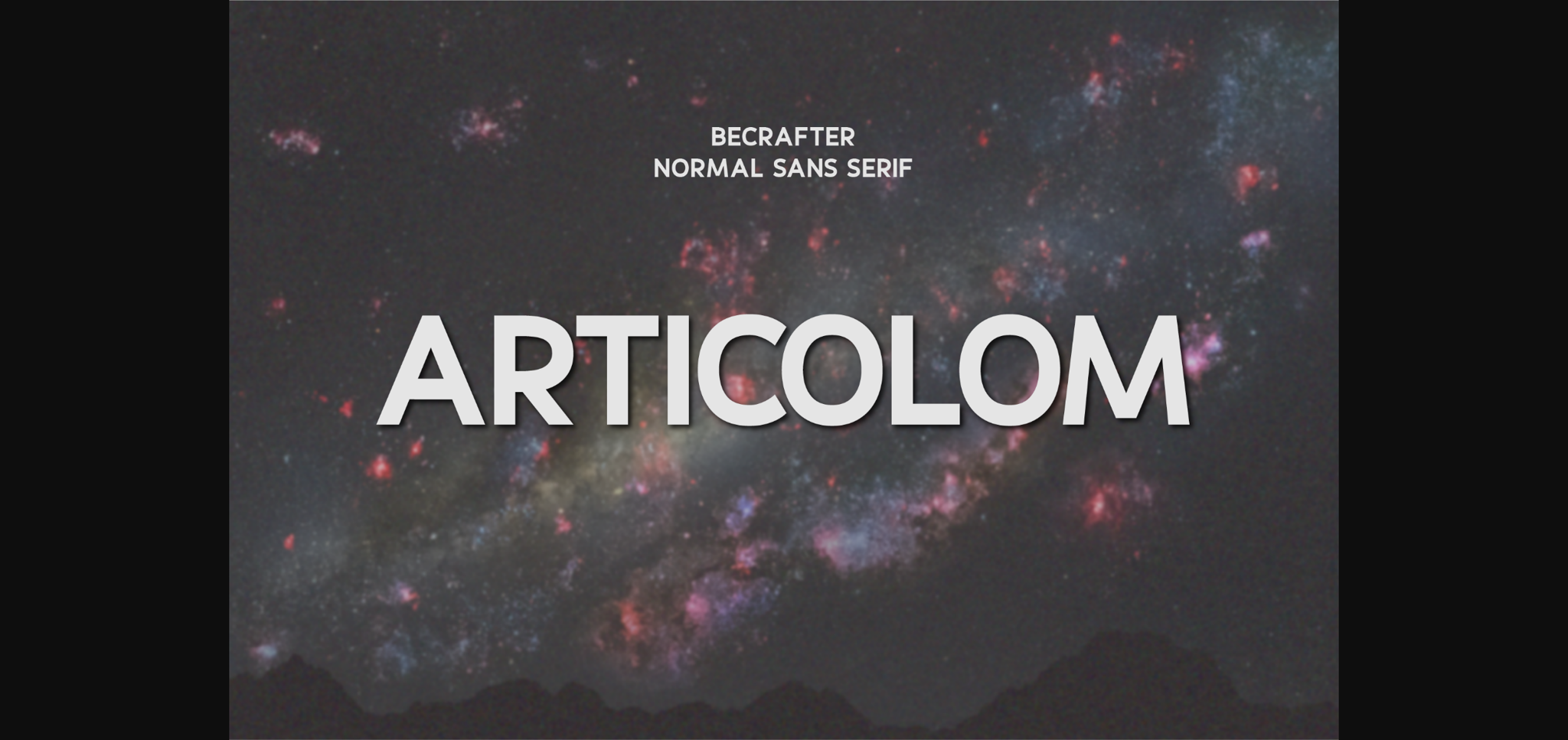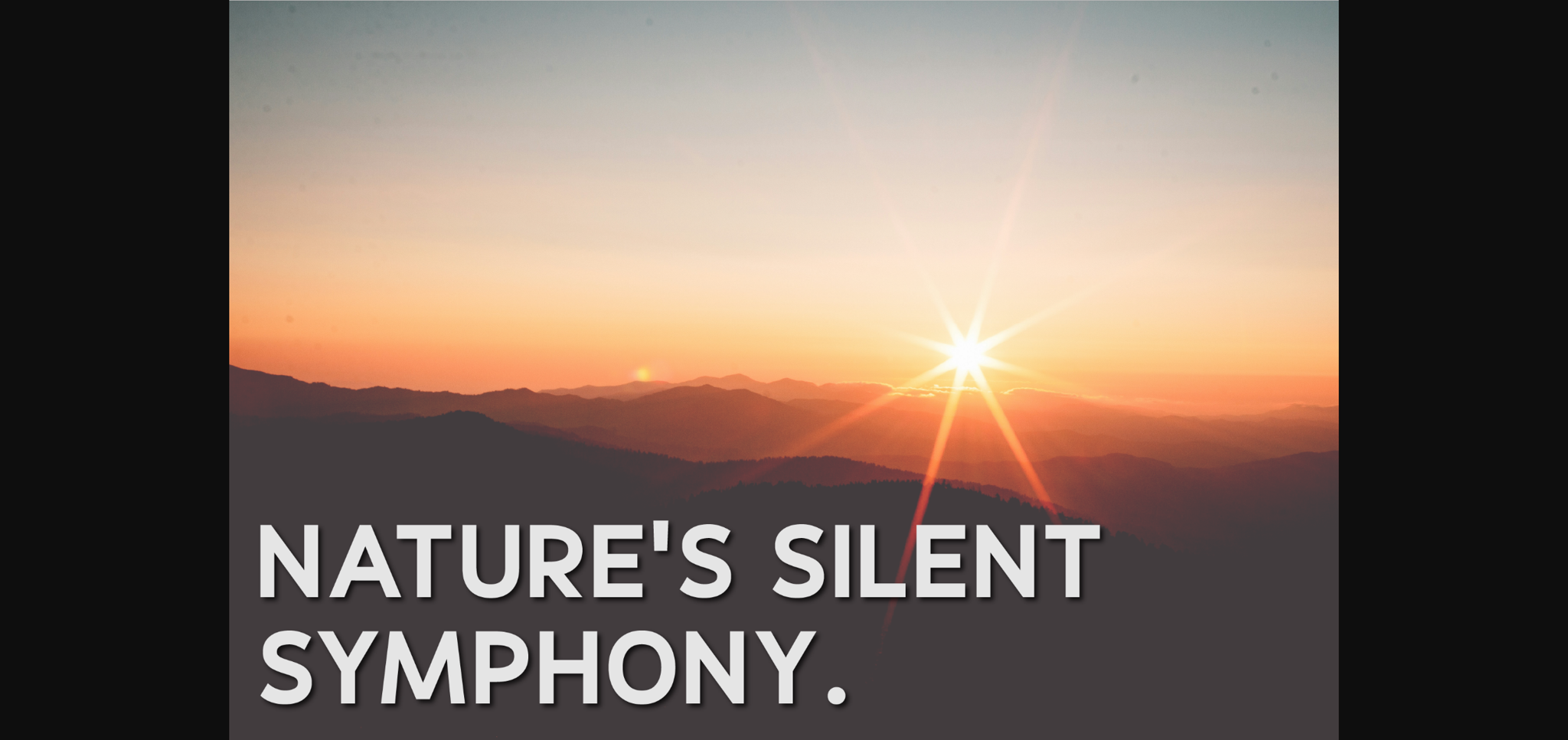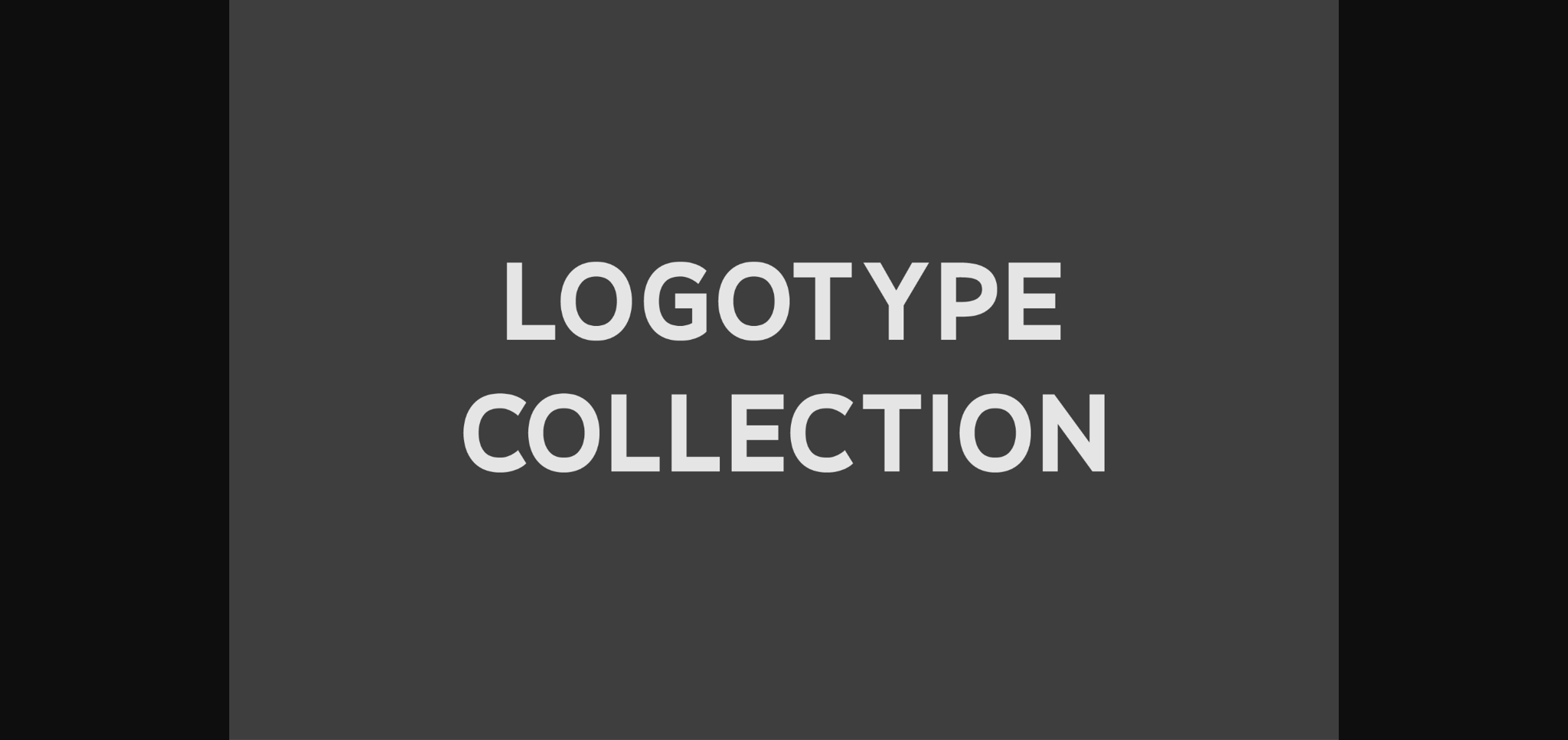
Articolom Font
About Articolom Font
Presenting Articolom – a striking and bold typeface that’s timeless in appeal. As an exquisite vintage sans serif lettering, the beauty of this font lies in its versatility, making a punchy visual impact in any setting. Articolom is a perfect blend of the past, present, and future, effortlessly enabling you to craft captivating logos, enchanting printed materials, and so much more. In this versatile toolkit, you’ll find uppercase lettering, numbers, and punctuation – everything you need to transform your text into a typographic masterpiece. With Articolom, every stroke is a revelation, every character a statement. Experience the ageless charm and bold strength of Articolom today.